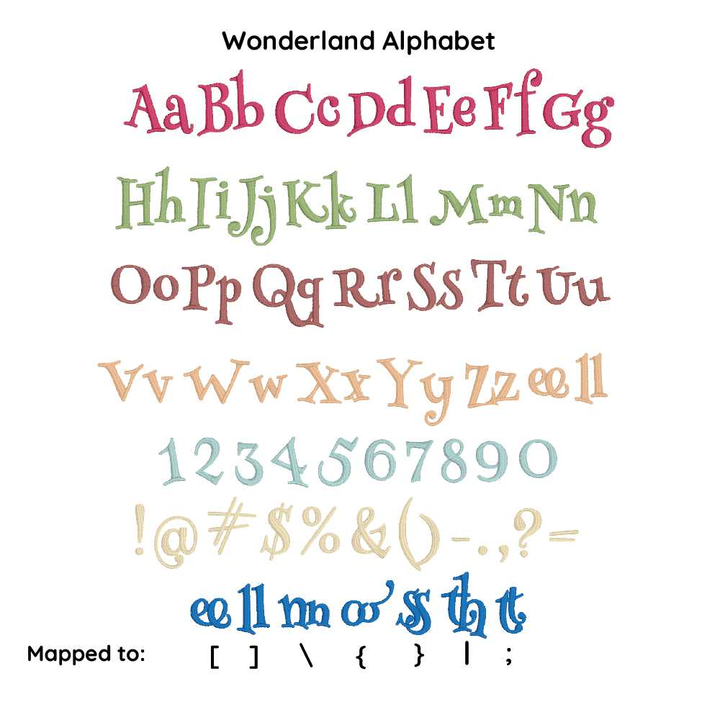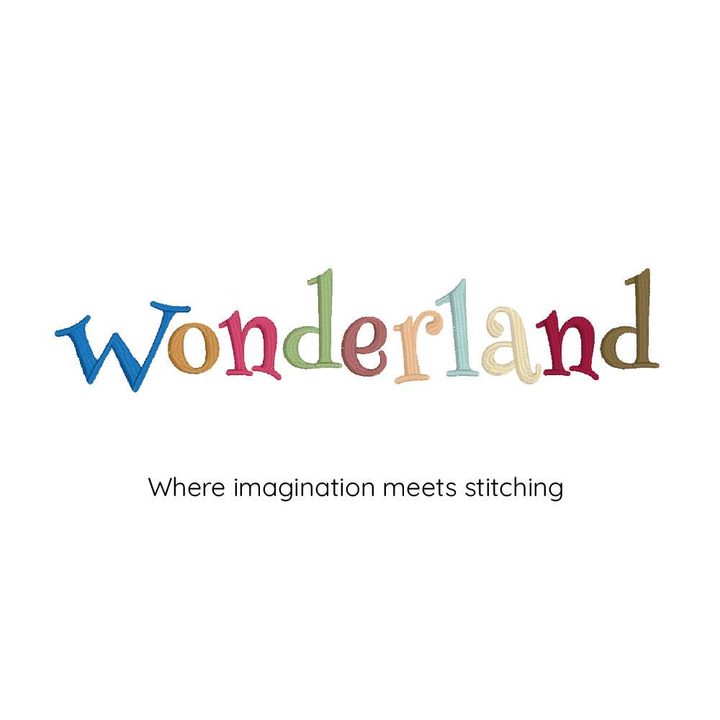
Photograph of Wonderland embroidery font alphabet
Wonderland Digital Font
Introducing Wonderland, the whimsical embroidery font that will bring your designs to life! Inspired by the playful curves and swoops of the popular font Henny Penny, Wonderland is the perfect addition to any embroidery enthusiast's collection.
With its charming and fun-loving letterforms, Wonderland is ideal for adding a touch of magic to your embroidered creations. Whether you're stitching up a child's sweater or personalizing a tote bag, this font will add a touch of wonder to any project.
Crafted with precision and care, Wonderland features smooth curves and intricate details that make every letter a work of art. And with its easy-to-use design, you'll be able to add this font to your embroidery library in no time.